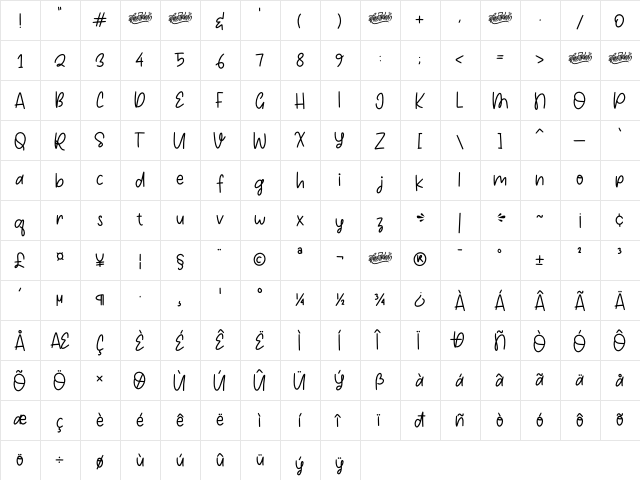
Salt & Pepper Regular
| Designer | Almarkhatype 2020 - Abdul Malik - Ghazi |
Design Context for Salt & Pepper Typeface
Salt & Pepper is a composed and adaptable typeface that performs quietly and consistently across a wide range of design contexts.